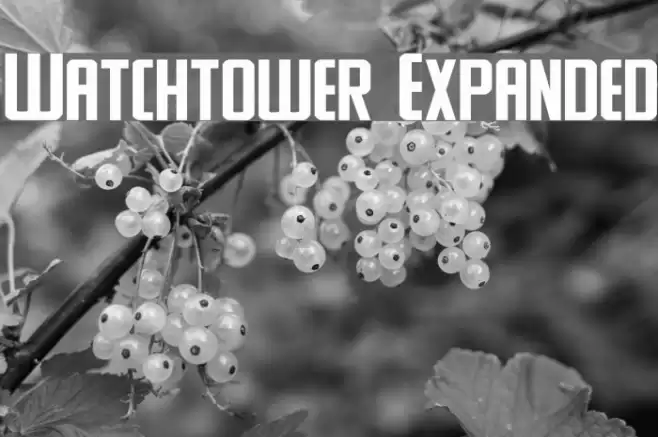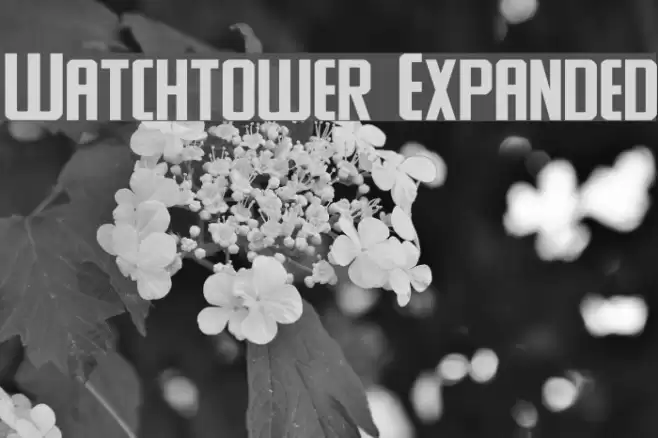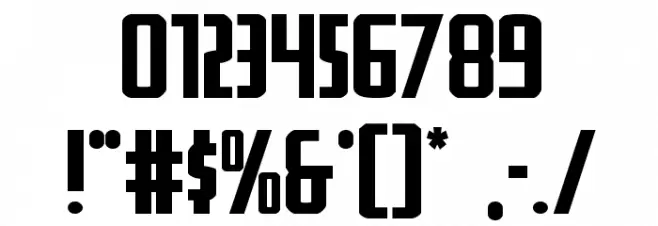
Watchtower Expanded Font
Watchtower Expanded Description
This font features a bold and striking design with a modern, geometric style. The characters are tall and narrow, with sharp angles and clean lines that convey a sense of strength and stability. The uppercase letters are particularly prominent, making a strong visual impact. The numbers and special characters maintain the same boldness, ensuring consistency across all elements. This font is ideal for projects that require a commanding presence and a contemporary aesthetic.
A bold, geometric font with tall, narrow characters and sharp angles from Uncategorized fonts.
- Proposed Projects: Ideal for headlines, posters, branding, and any project needing a strong, modern look.